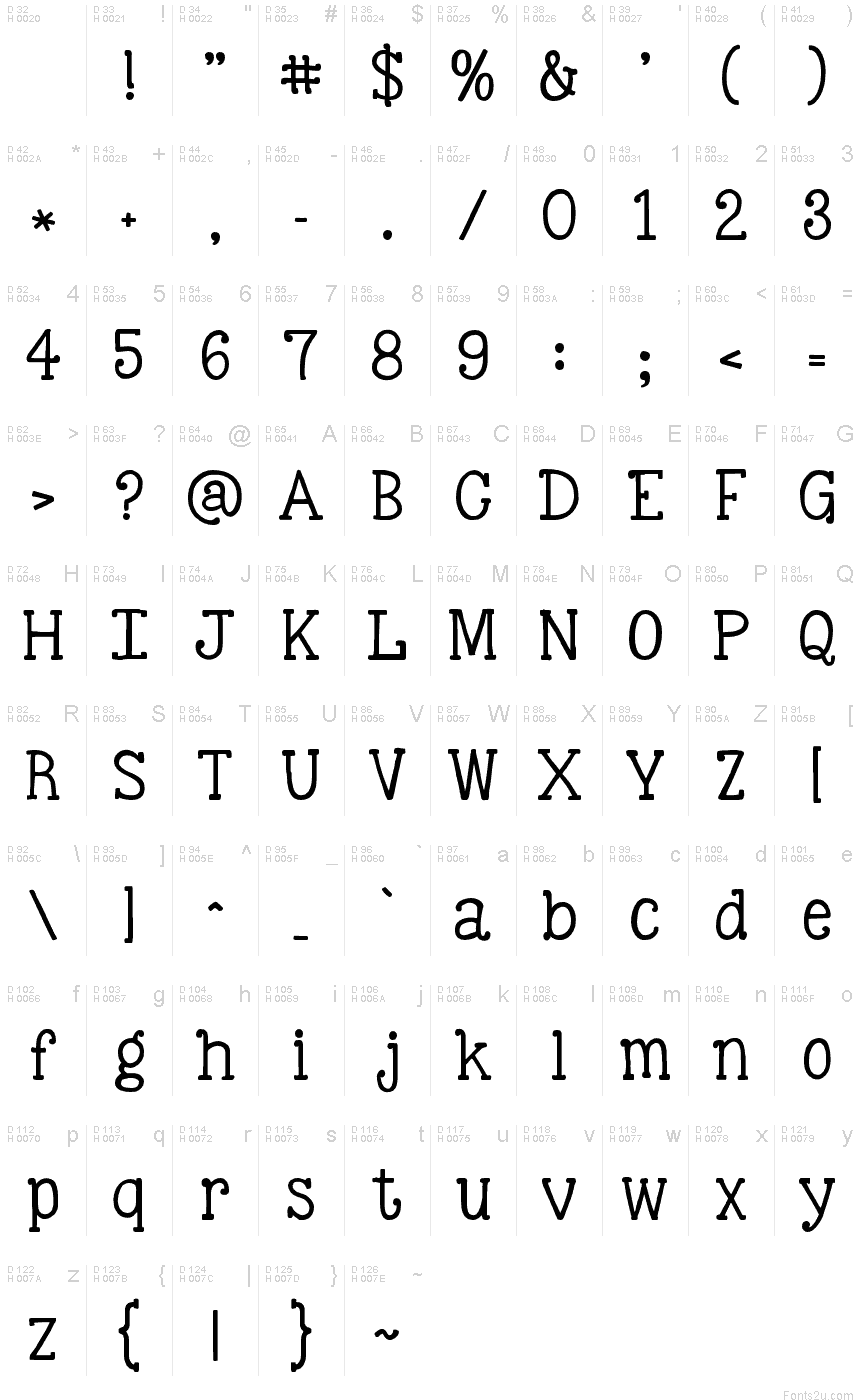
KG Be Still & Know by Kimberly Geswein is a free comic display font with tall, uneven letters and a gently hand-cut appearance. Its narrow shapes mix softly rounded edges with small slab-like feet for an offbeat storybook manner.
Independent bookshops and craft brands could use it for packaging, signage, and promotional graphics. It also suits children's publishing. The irregular contours echo simple cut-paper illustration, a useful link for covers and event posters.